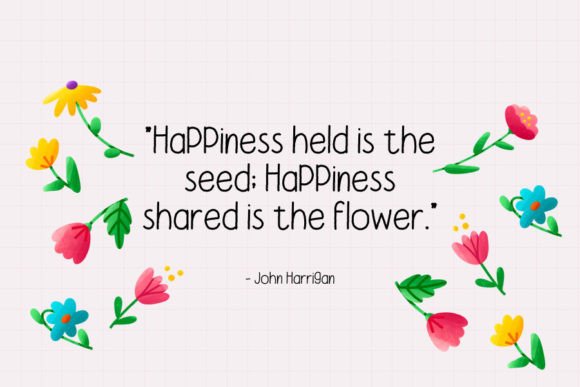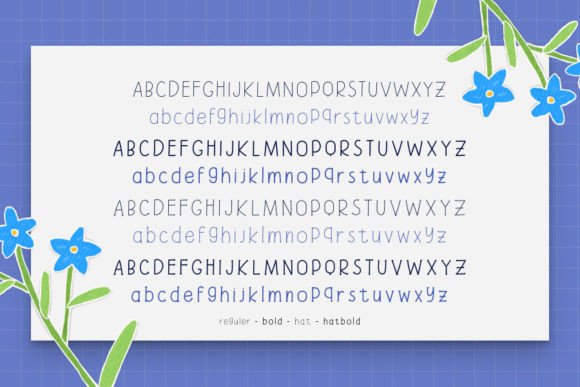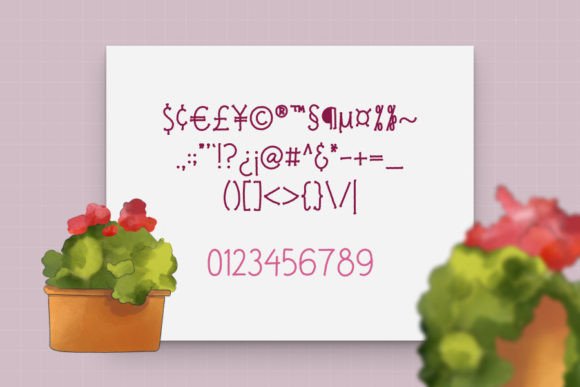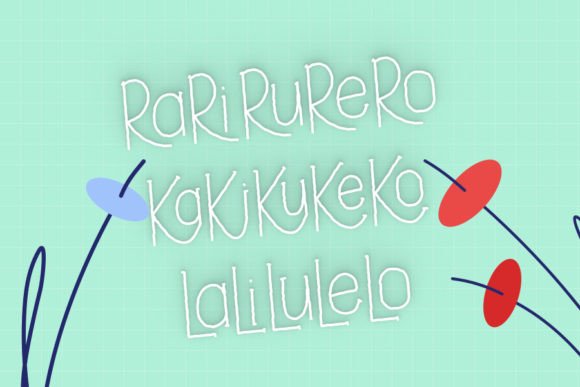
Introducing Flower Days Font: The Ultimate Choice for Designers and Crafters
Are you tired of using the same old fonts in your designs? Do you want to add a touch of uniqueness and personality to your creations? Look no further than Flower Days Font, a one-of-a-kind, cute, and skinny handwritten font that’s sure to make your designs stand out from the crowd.
What Makes Flower Days Font So Special?
Flower Days Font is a simple yet visually striking font that’s perfect for designers and crafters who want to add a personal touch to their work. Its unique and handwritten style gives it a distinctive look that’s both modern and elegant. Whether you’re creating invitations, greeting cards, or social media graphics, Flower Days Font is the perfect choice.
Key Features of Flower Days Font
- Unique and Handwritten Style: Flower Days Font boasts a one-of-a-kind, handwritten style that’s both cute and elegant.
- Skinny and Modern Look: The font’s skinny design gives it a modern and sleek look that’s perfect for contemporary designs.
- Strong Visual Effect: Despite its simplicity, Flower Days Font has a strong visual effect that instantly makes your creations more appealing.
- Easy to Read: The font is clear and easy to read, making it perfect for body text and headings.
Uses of Flower Days Font
Flower Days Font is a versatile font that can be used in a variety of design projects, including:
- Invitations and Greeting Cards: Add a personal touch to your invitations and greeting cards with Flower Days Font.
- Social Media Graphics: Use Flower Days Font to create eye-catching social media graphics that stand out from the crowd.
- Blog and Website Design: Add a touch of elegance to your blog or website with Flower Days Font.
- Crafting and Scrapbooking: Use Flower Days Font to add a personal touch to your crafting and scrapbooking projects.
Why Designers and Crafters Love Flower Days Font
Designers and crafters love Flower Days Font for its unique and versatile design. Here are a few reasons why:
- Instantly Elevates Designs: Flower Days Font instantly elevates your designs and makes them more appealing.
- Perfect for Branding: The font’s unique style makes it perfect for branding and creating a consistent visual identity.
- Easy to Pair with Other Fonts: Flower Days Font is easy to pair with other fonts, making it perfect for creating visually appealing designs.
| Author | Creassion Studio |
Flower Days Font is a unique and versatile font that’s perfect for designers and crafters who want to add a personal touch to their designs. Its cute and skinny handwritten style gives it a distinctive look that’s both modern and elegant. With its strong visual effect and ease of use, Flower Days Font is the ultimate choice for anyone looking to elevate their designs.